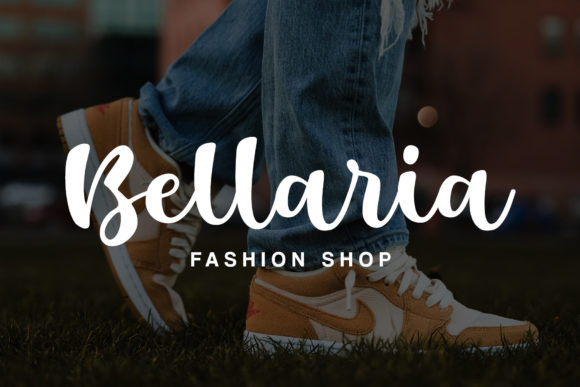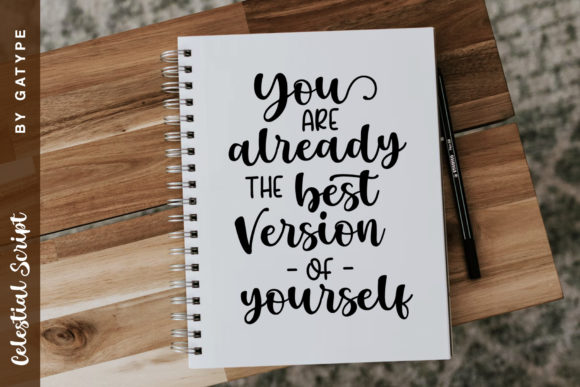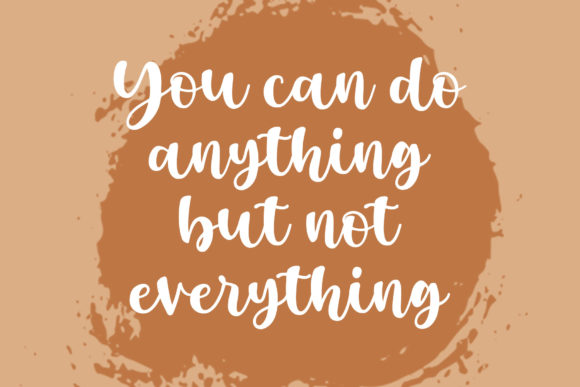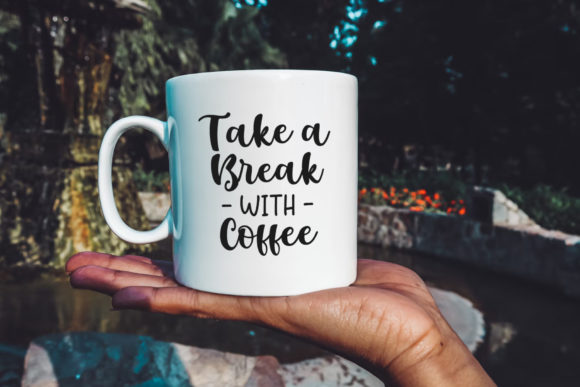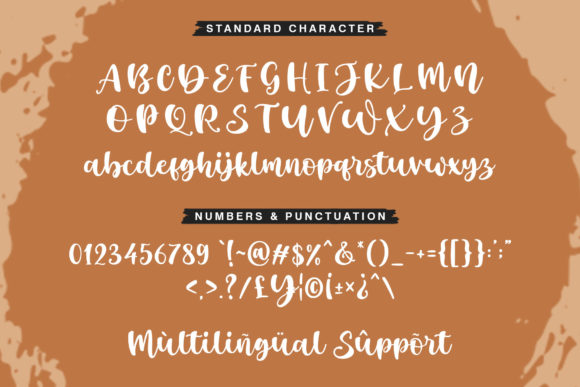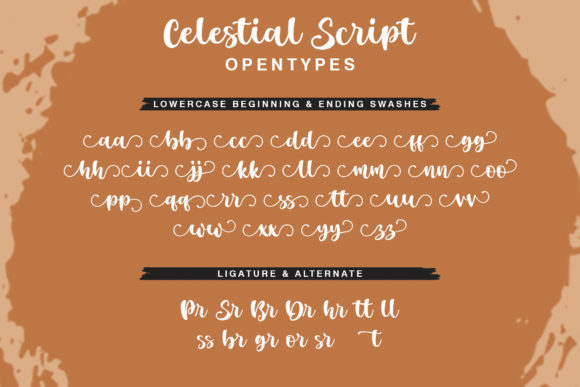
Celestial Font: Elevate Your Designs with a Trendy, Round Lettered Script Font
In the world of typography, fonts play a crucial role in conveying the tone and personality of a design. If you’re a designer or crafter looking for a stylish and versatile font to elevate your creations, look no further than Celestial. This trendy, round lettered script font is perfect for crafting beautiful wedding invitations, stunning stationary art, eye-catching social media posts, and much more.
What Makes Celestial Font So Special?
Celestial is a ravishing script font that boasts a unique, round lettered style that’s sure to capture attention. Its elegant and flowing curves make it perfect for designs that require a touch of sophistication and glamour. Whether you’re creating wedding invitations, branding materials, or social media graphics, Celestial is the perfect choice for adding a dash of personality and style.
Key Features of Celestial Font
- Trendy and Modern: Celestial is a modern script font that’s perfect for designers and crafters who want to stay on-trend.
- Round Lettered: The font’s round lettered style gives it a soft, elegant look that’s perfect for feminine designs.
- Stylish and Versatile: Celestial can be used for a wide range of design projects, from wedding invitations to social media graphics.
- Elegant and Sophisticated: The font’s flowing curves and elegant lines make it perfect for designs that require a touch of sophistication.
Uses for Celestial Font
Celestial is a versatile font that can be used for a wide range of design projects, including:
- Wedding Invitations: Create beautiful, elegant wedding invitations that set the tone for the big day.
- Stationary Art: Use Celestial to create stunning stationary art, including greeting cards, thank you cards, and more.
- Social Media Graphics: Add a touch of personality and style to your social media graphics, including Facebook posts, Instagram stories, and more.
- Branding Materials: Use Celestial to create elegant and sophisticated branding materials, including logos, business cards, and more.
Tips for Using Celestial Font
To get the most out of Celestial, here are a few tips to keep in mind:
- Pair with Bold Fonts: Pair Celestial with bold, sans-serif fonts to create a striking contrast.
- Use for Headlines: Use Celestial for headlines and titles to add a touch of elegance and sophistication.
Celestial is a trendy, round lettered script font that’s perfect for designers and crafters who want to elevate their designs. With its elegant and flowing curves, Celestial is perfect for creating beautiful wedding invitations, stunning stationary art, eye-catching social media posts, and much more. Whether you’re a seasoned designer or just starting out, Celestial is a versatile font that’s sure to become a staple in your design toolkit.